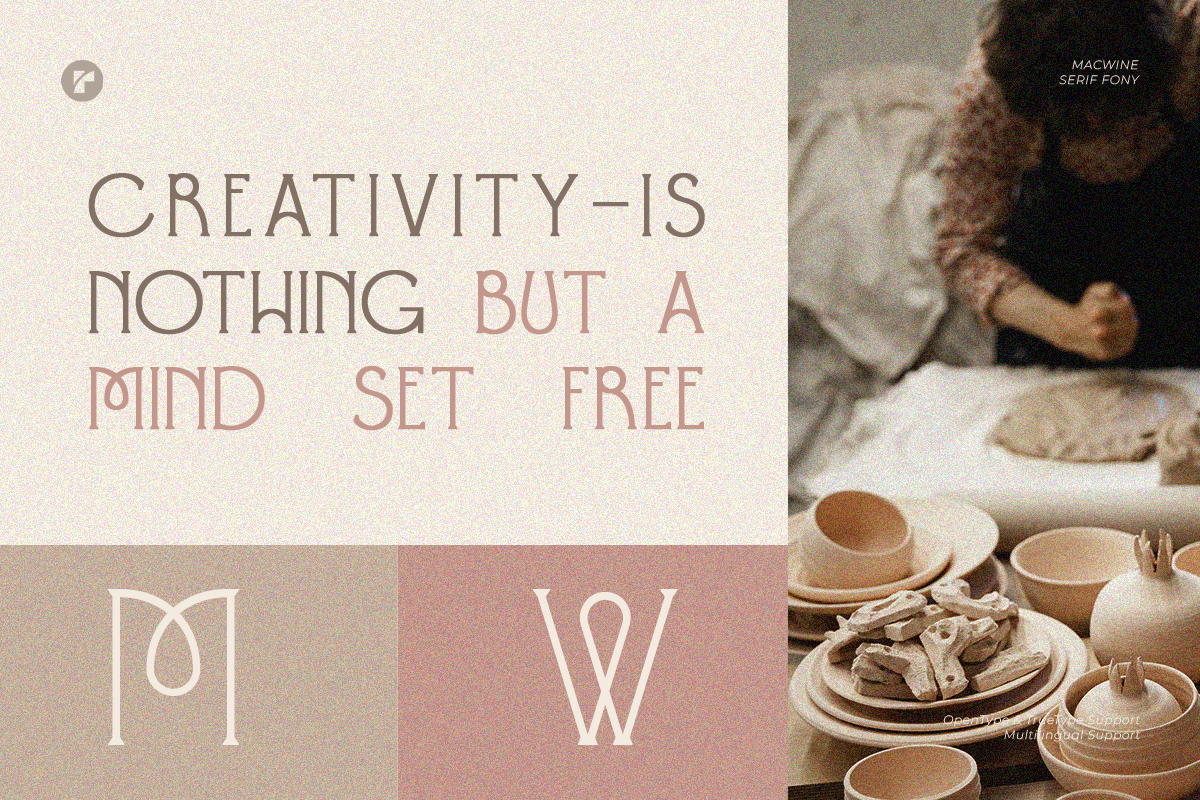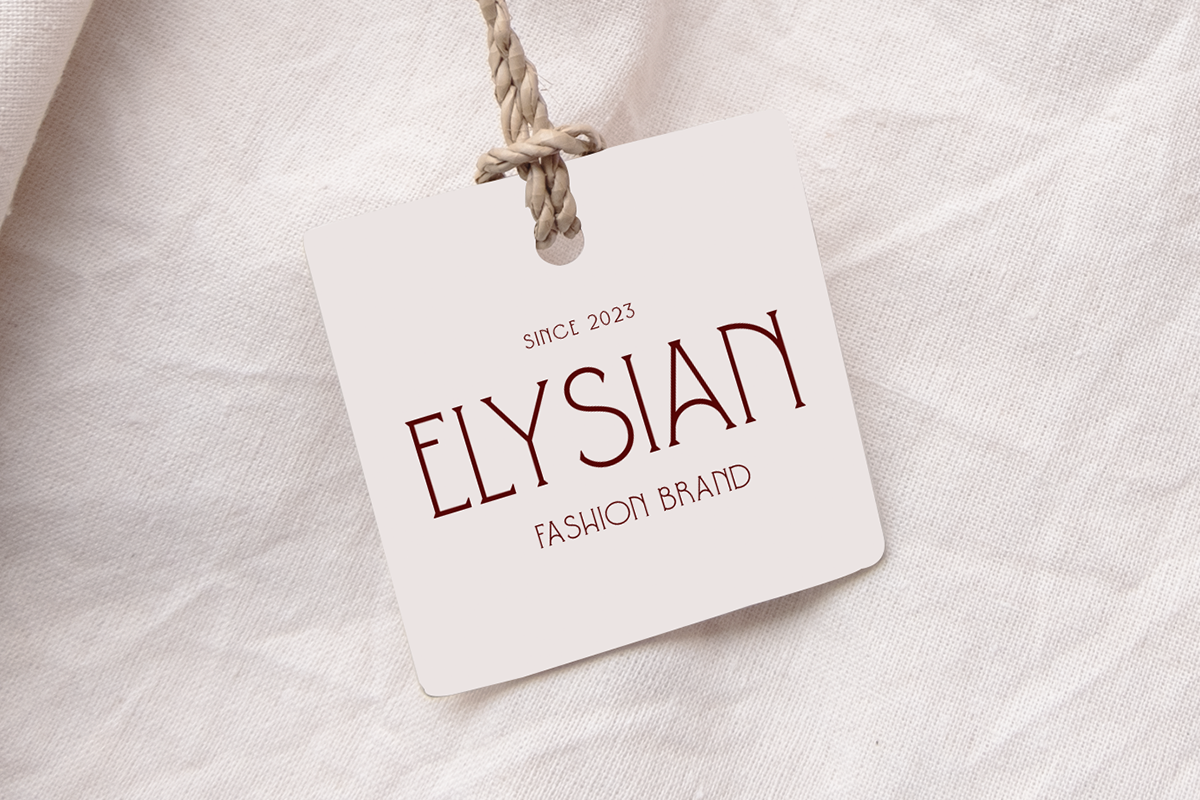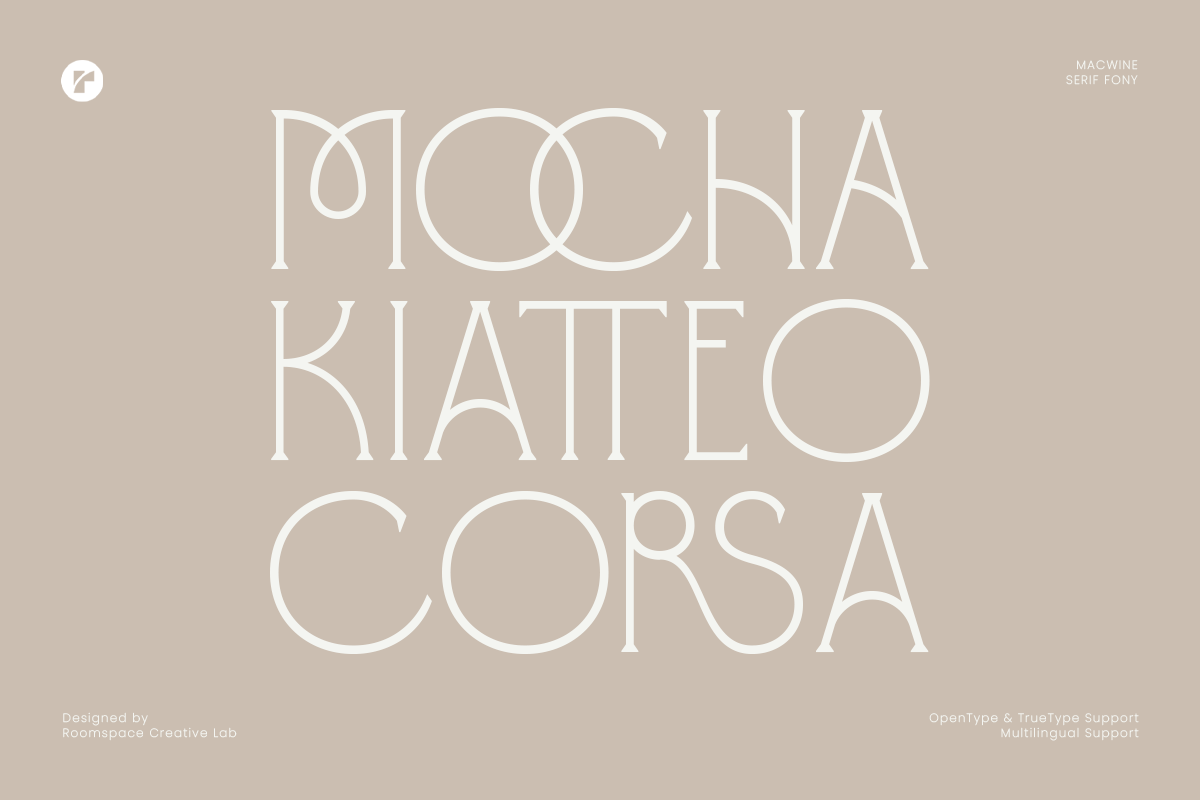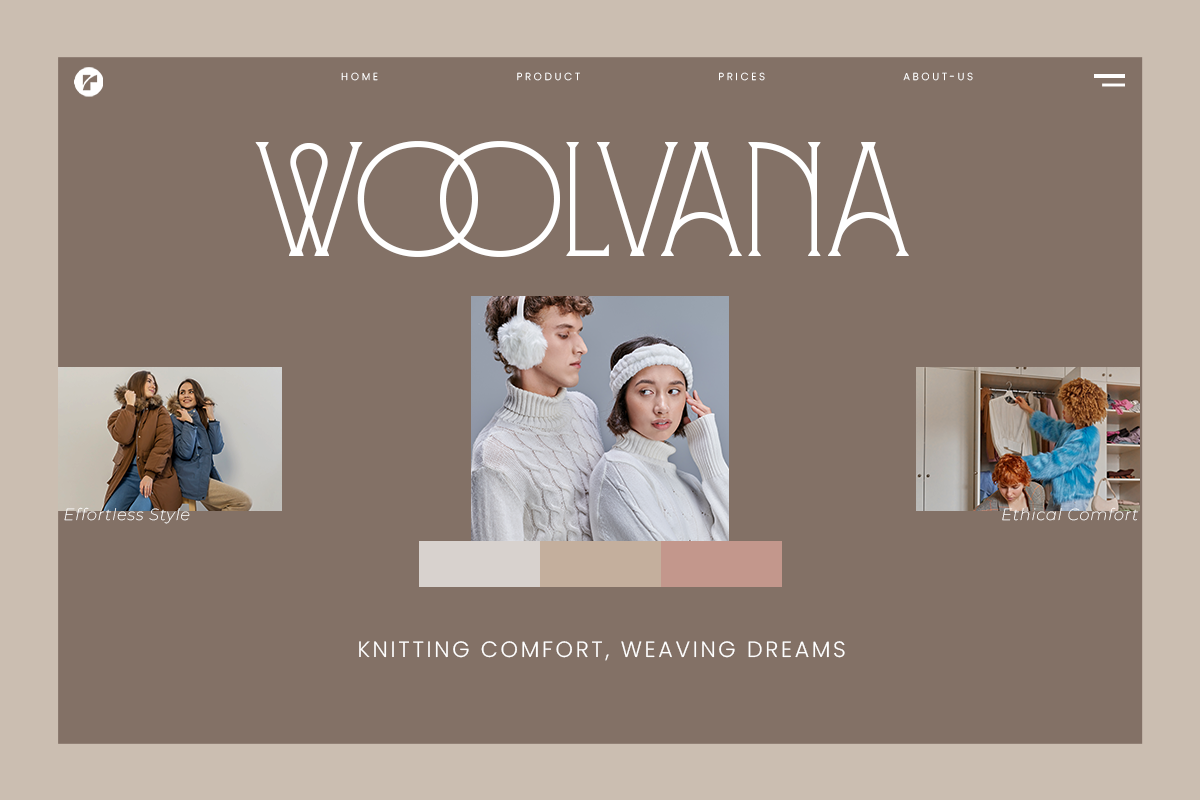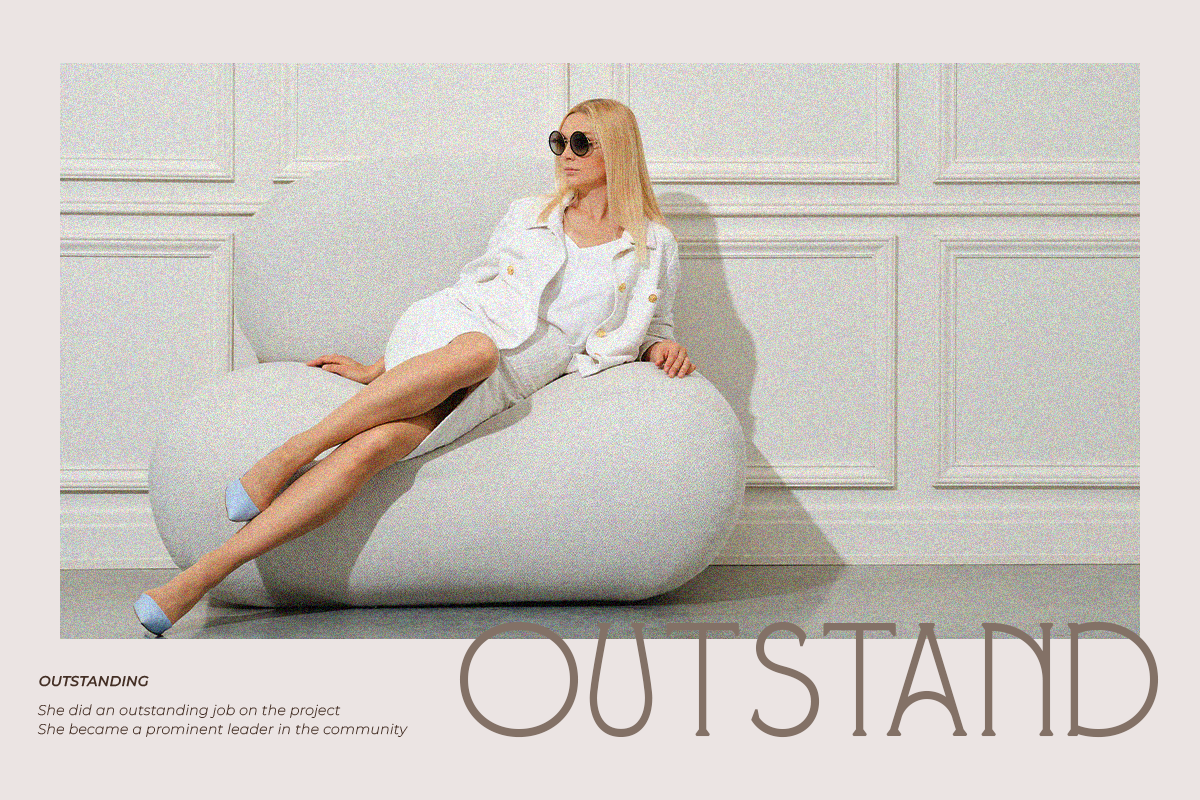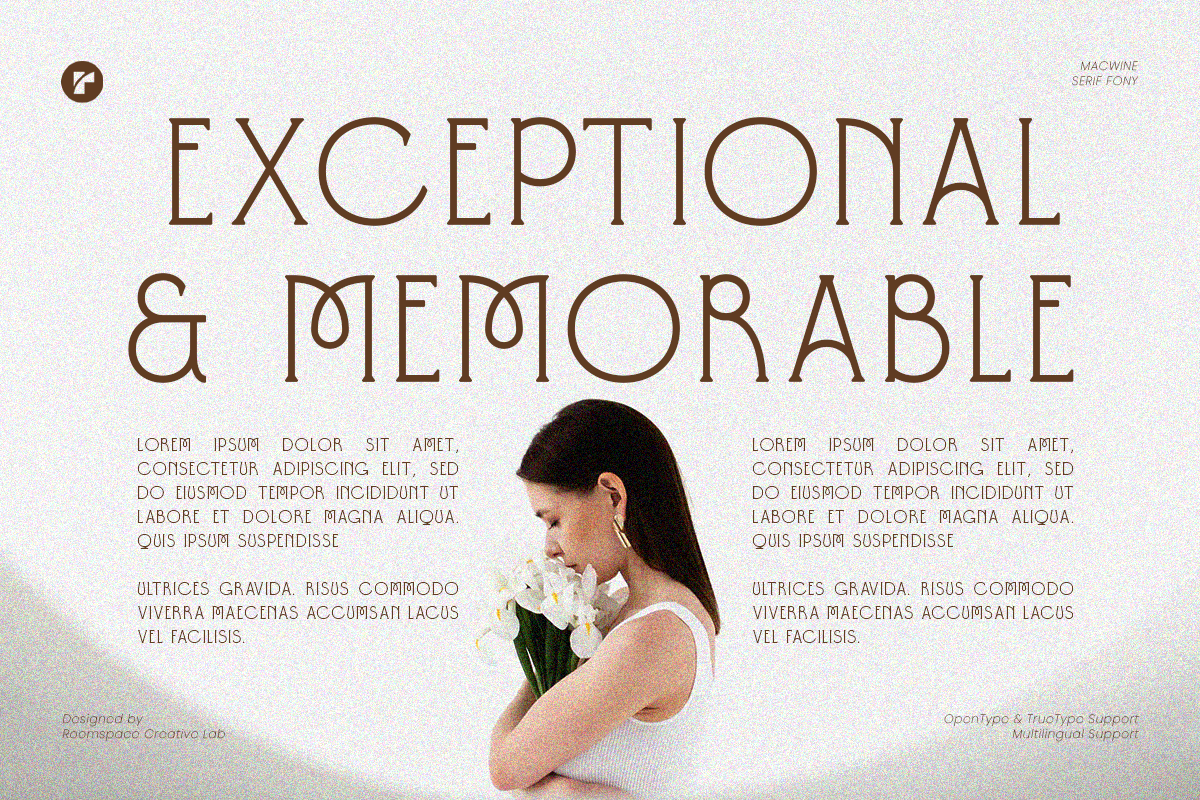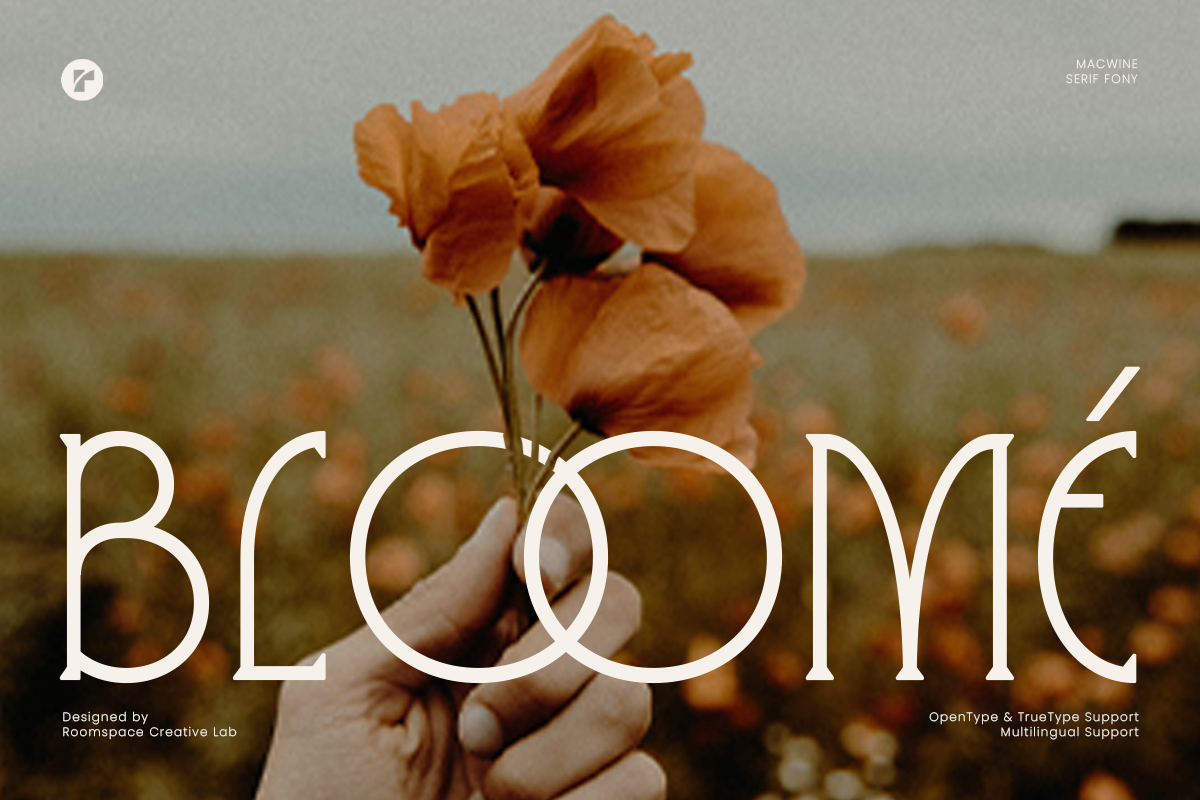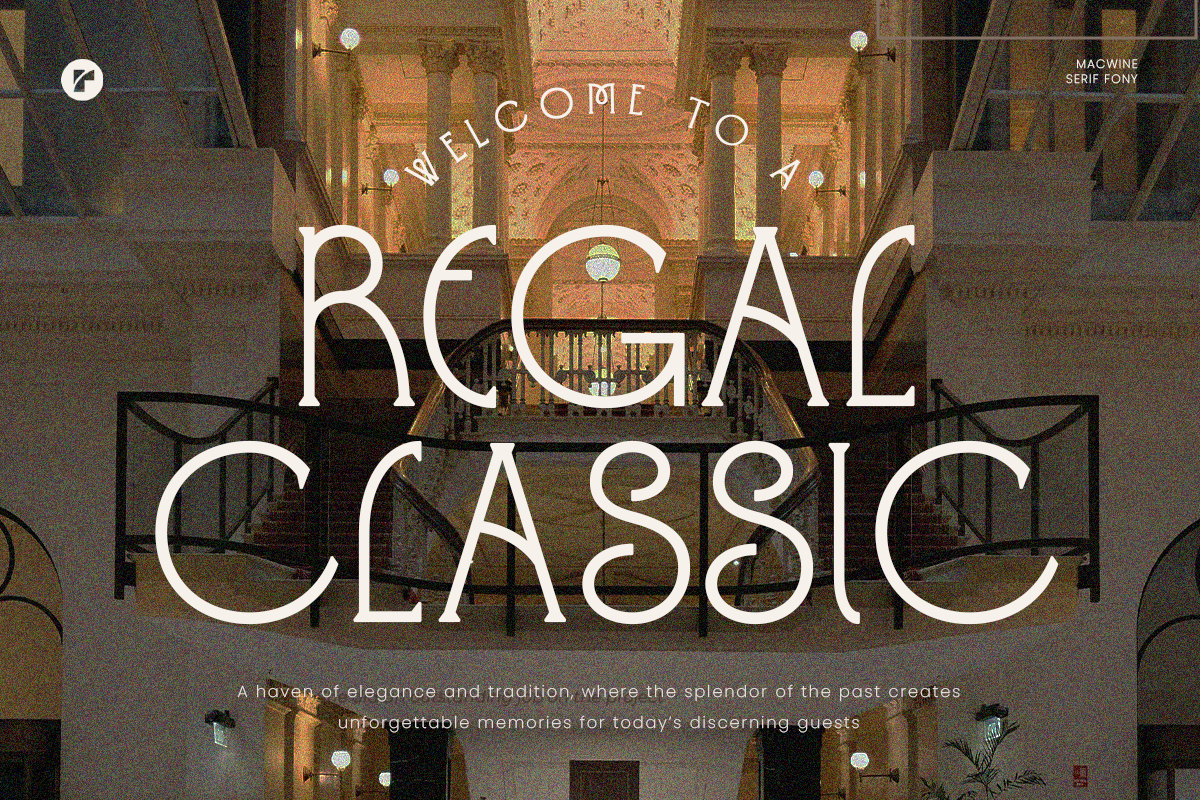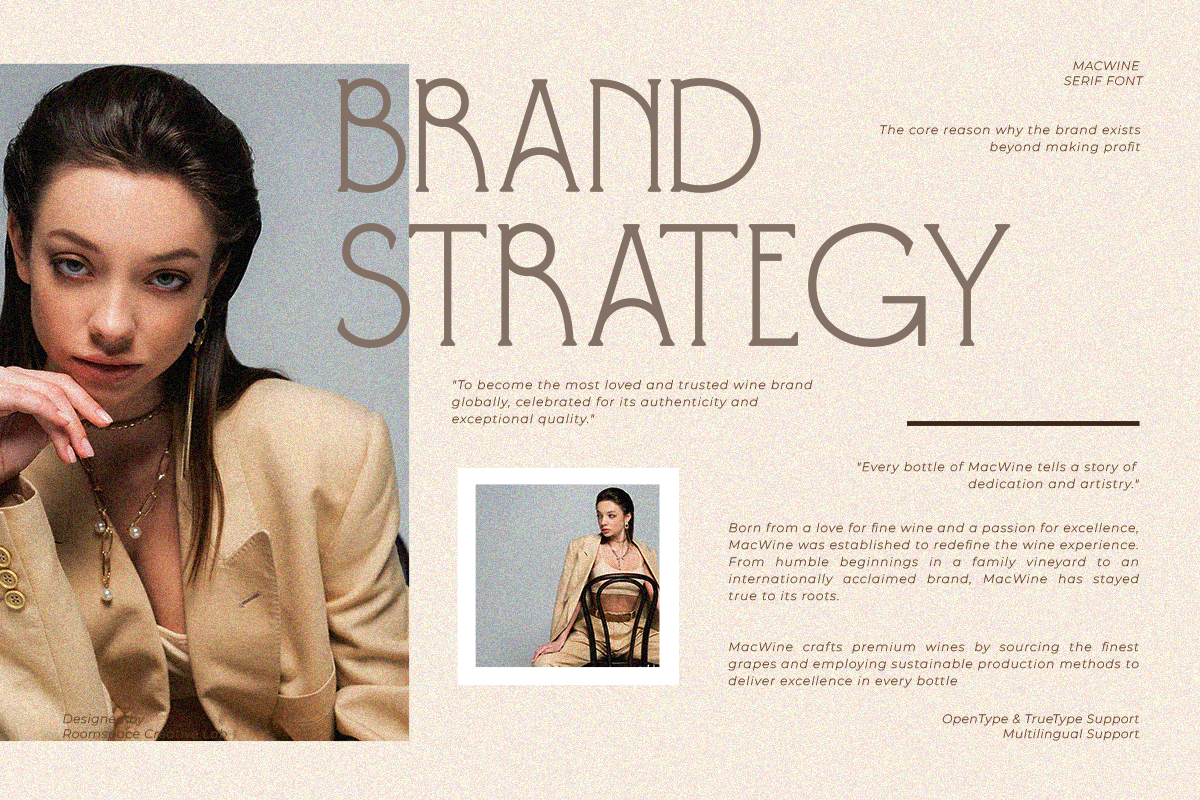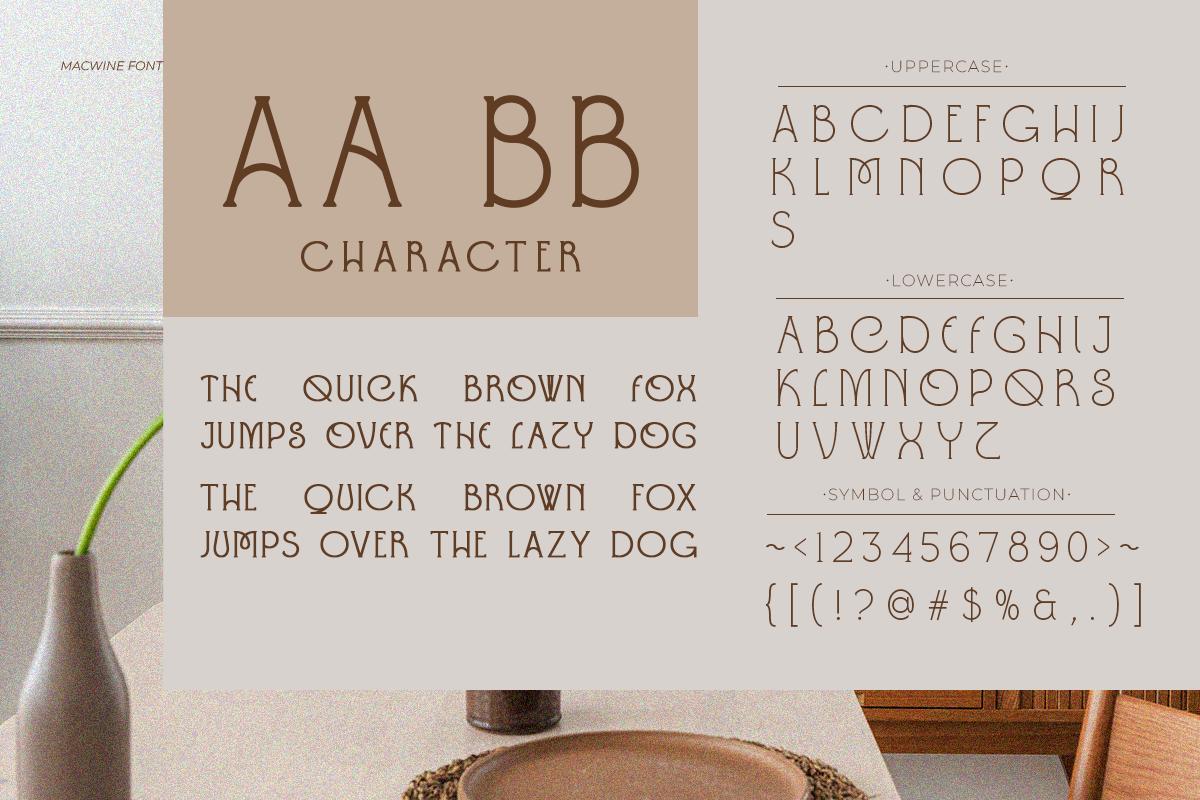
Macwine - Beautiful Chic Serif
Macwine is a refined serif display typeface designed to bring elegance and sophistication to your designs. Featuring unique ligatures and artistic letterforms, this font is perfect for high-end branding, magazine titles, wedding invitations, packaging designs, and more. With its delicate yet bold structure, Macwine works seamlessly in both digital and print projects, offering versatility for luxury designs, logos, and creative social media graphics. It also supports multiple languages, making it ideal for global projects.
Whether you're designing a timeless editorial layout or crafting a sleek brand identity, Macwine delivers impeccable results. Its harmonious blend of classic and modern styles ensures your designs stand out with elegance and creativity. From magazine titles to wedding invitations and poster designs, Macwine adds a unique touch with its customized ligatures and eye-catching details.